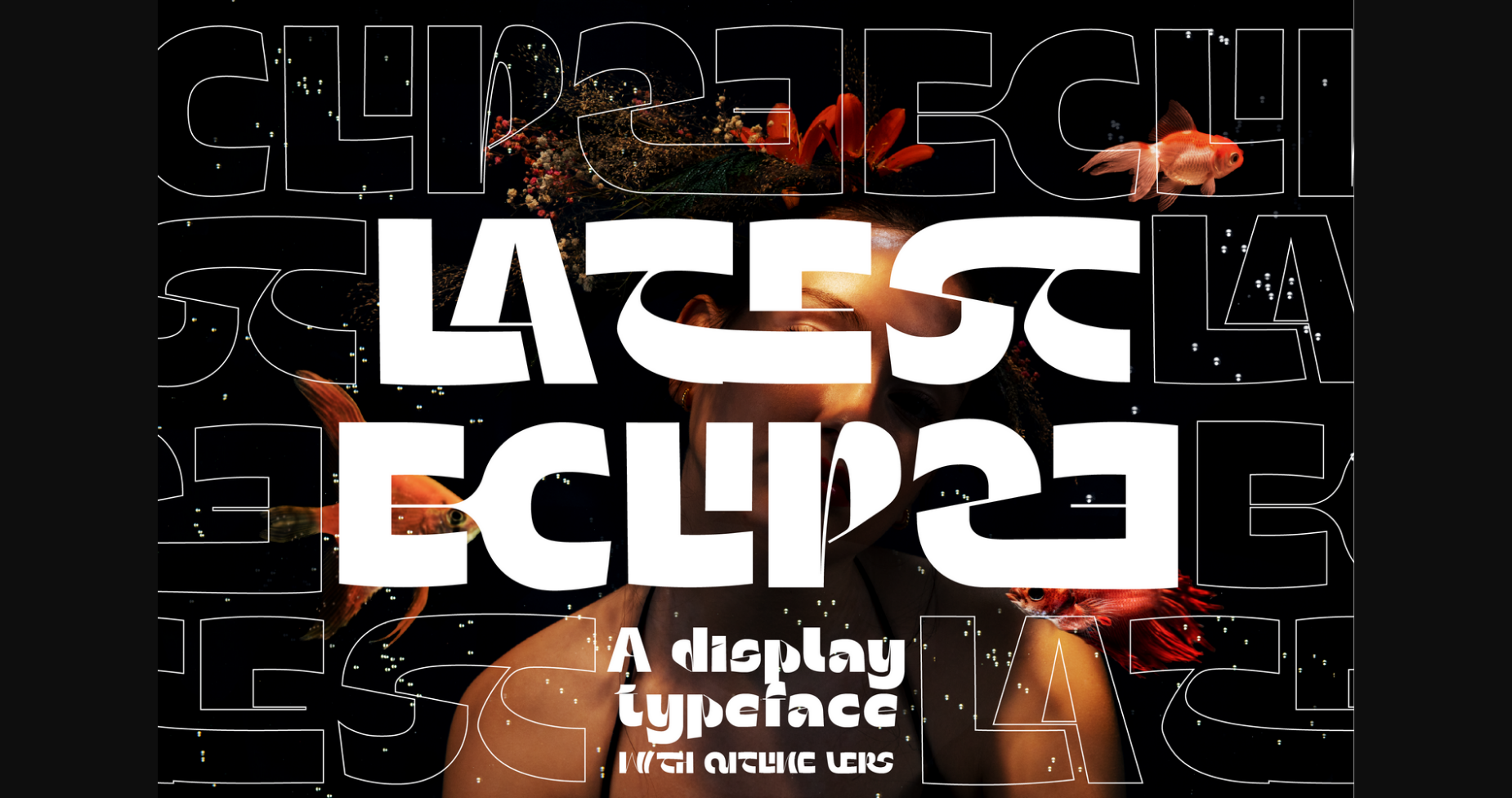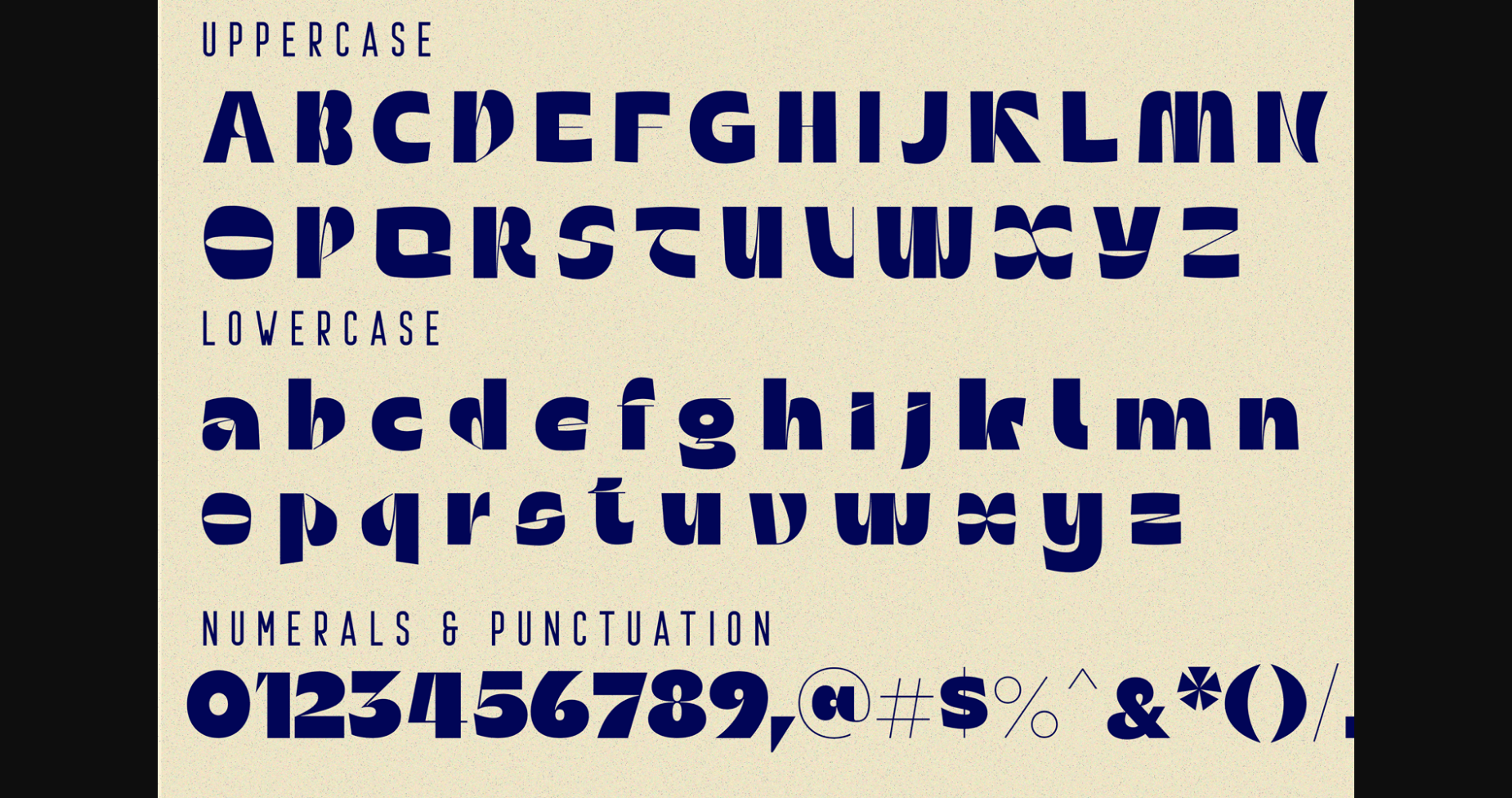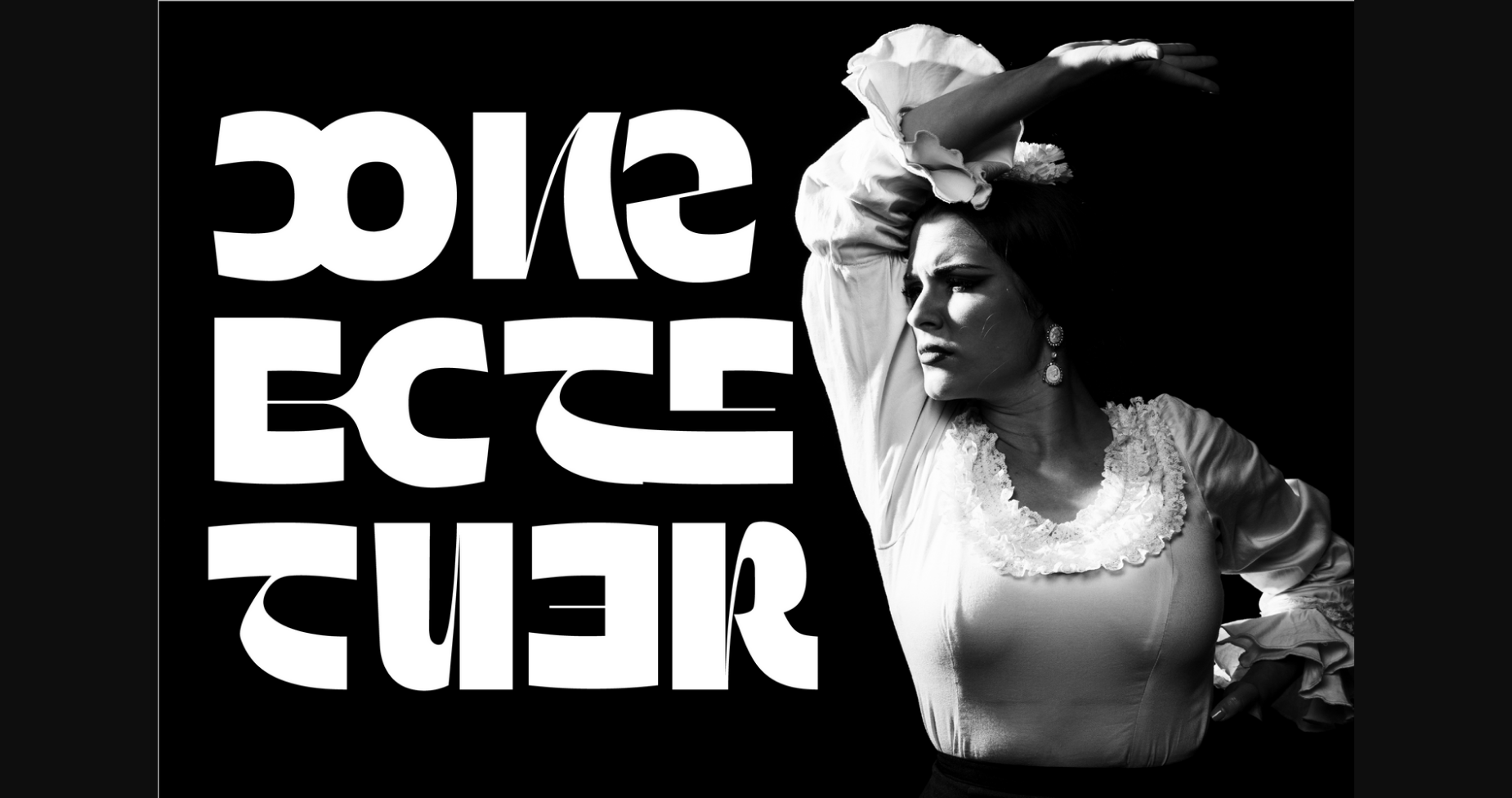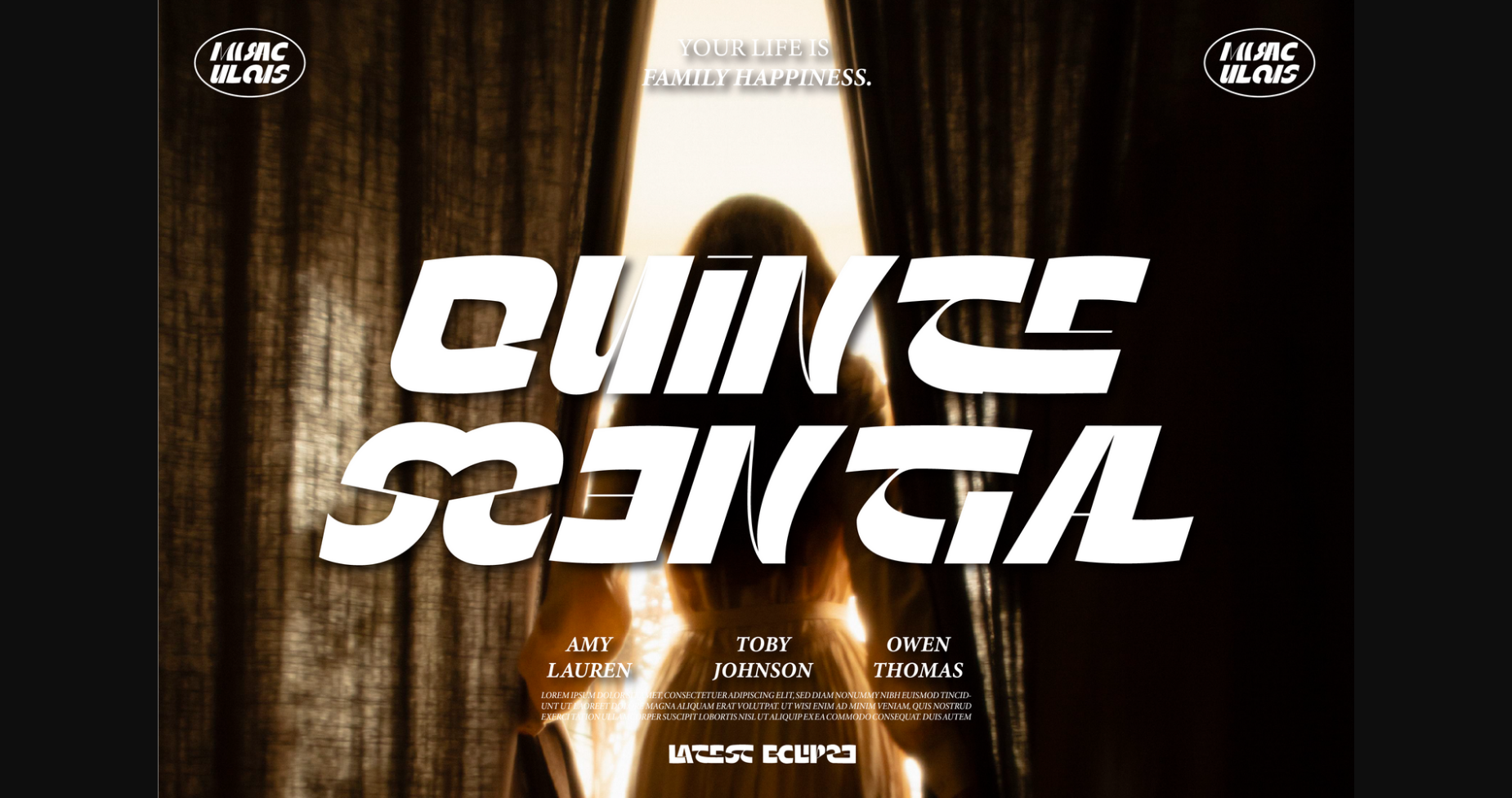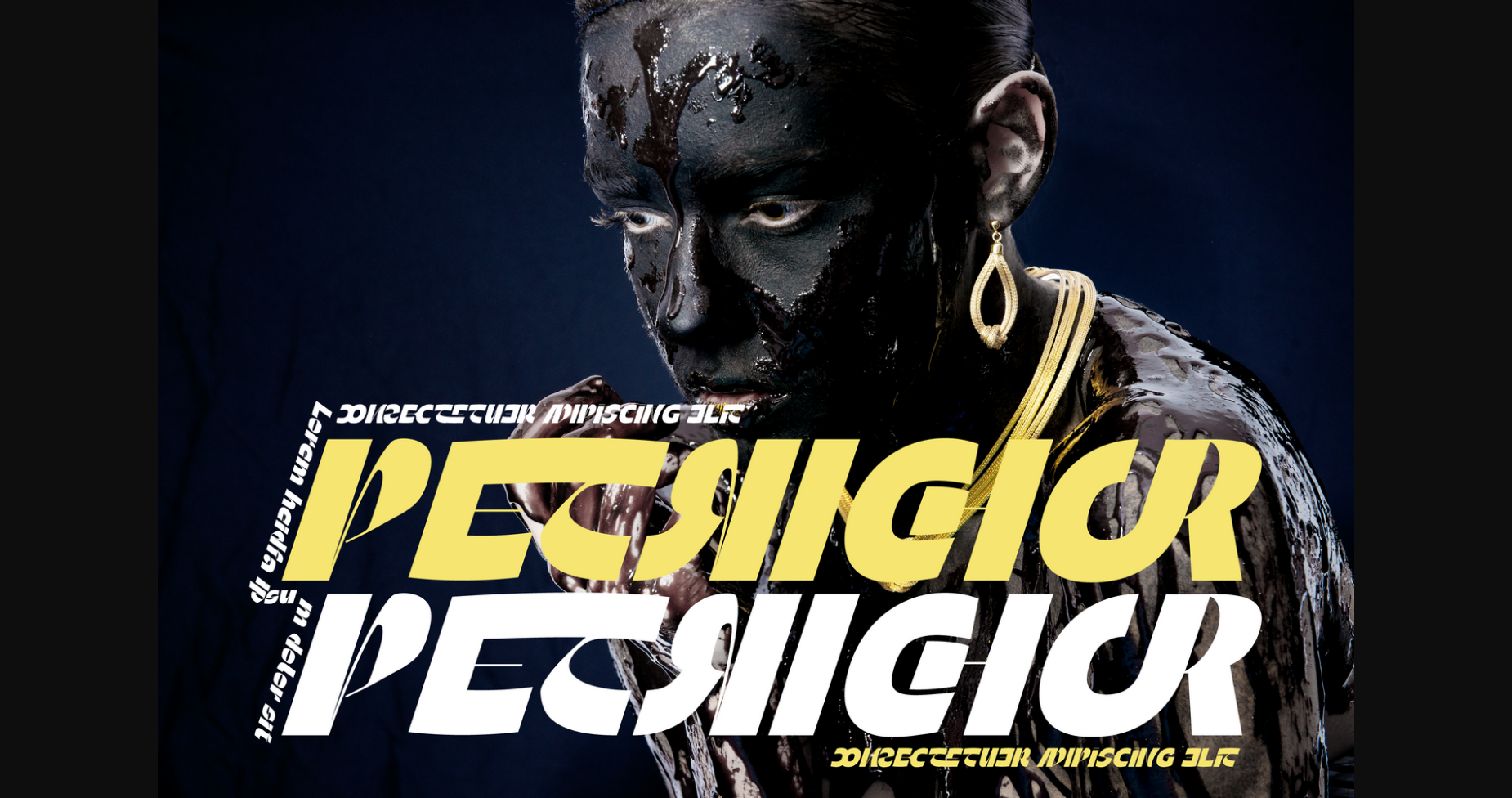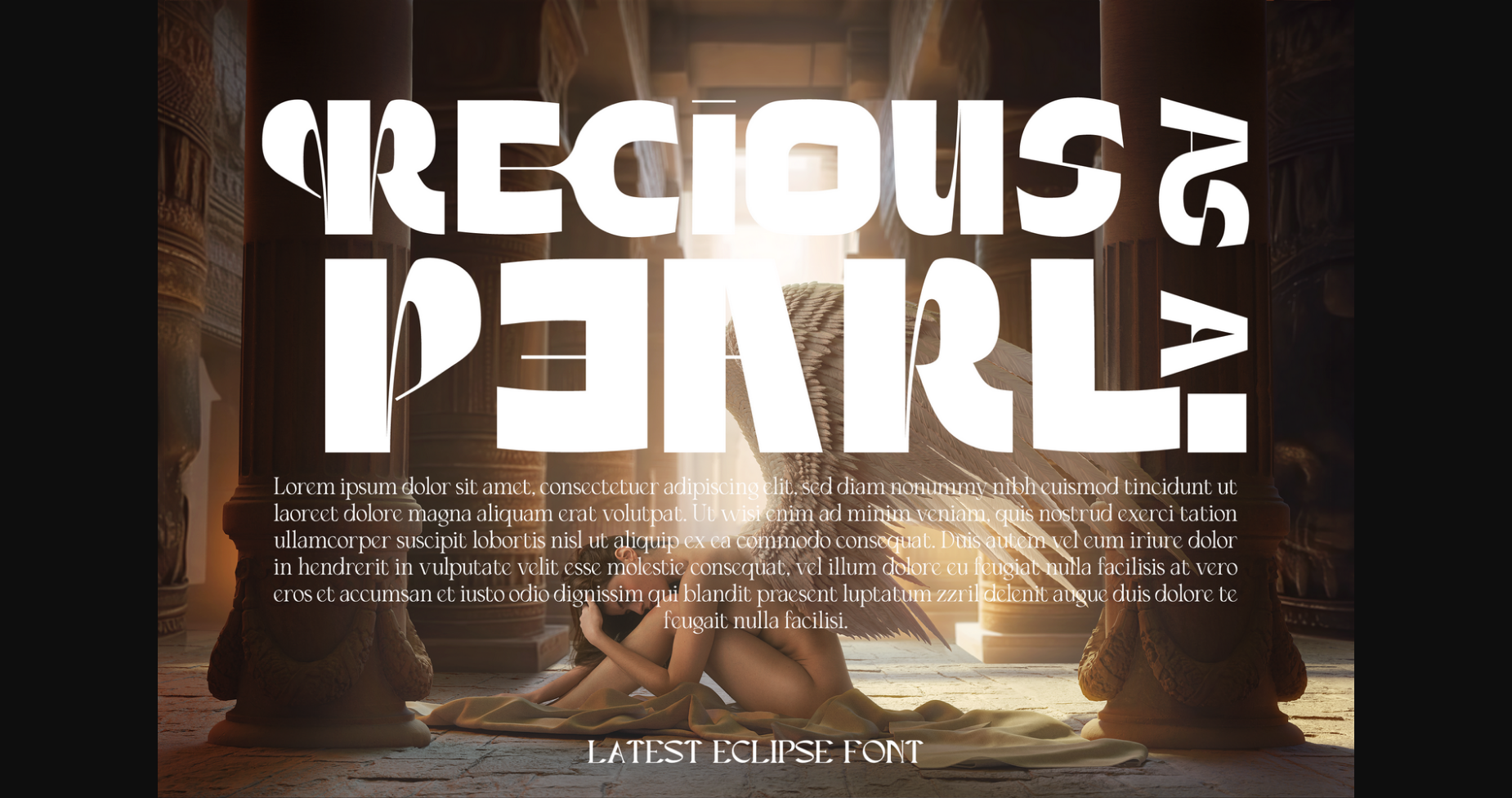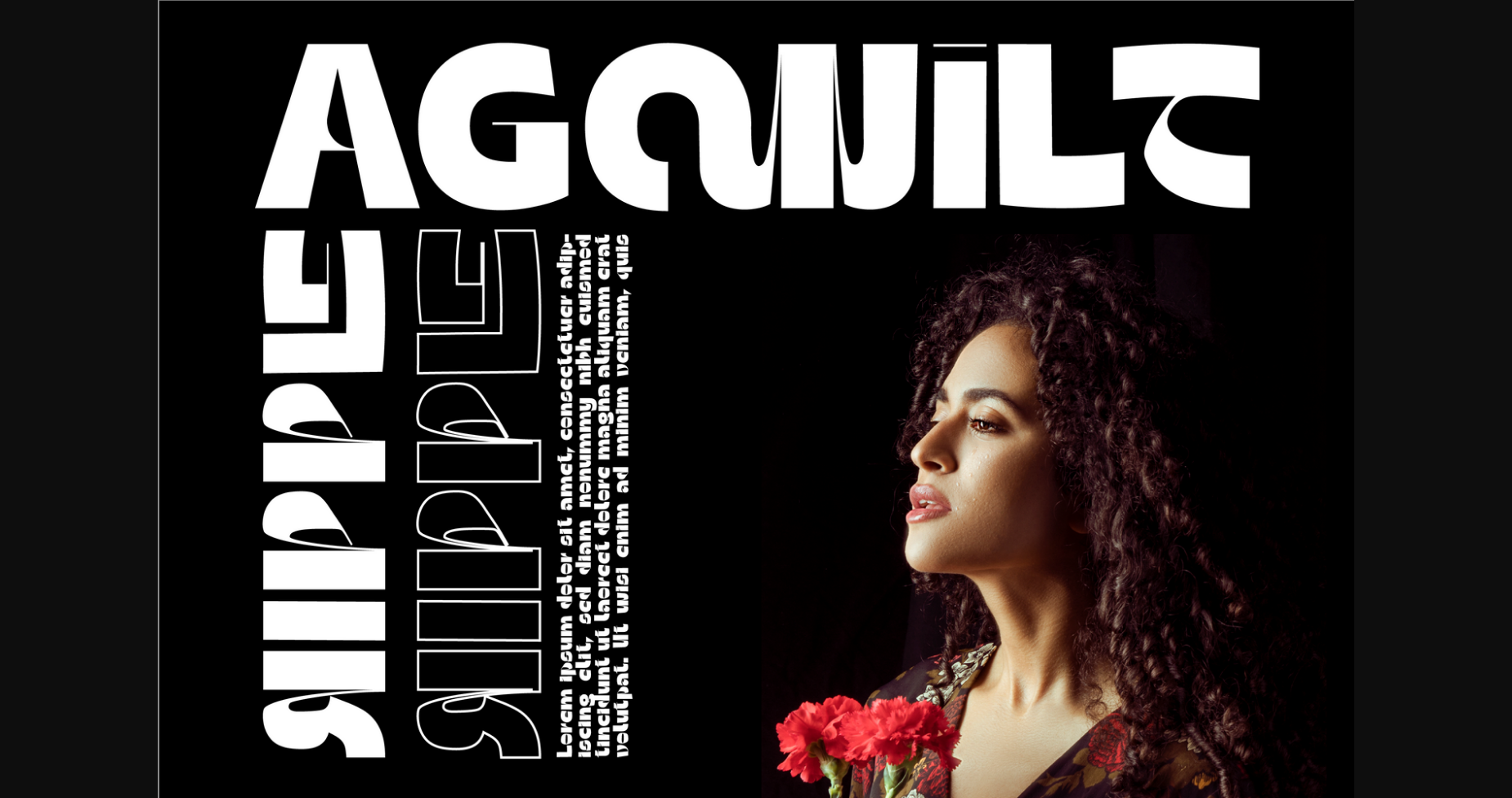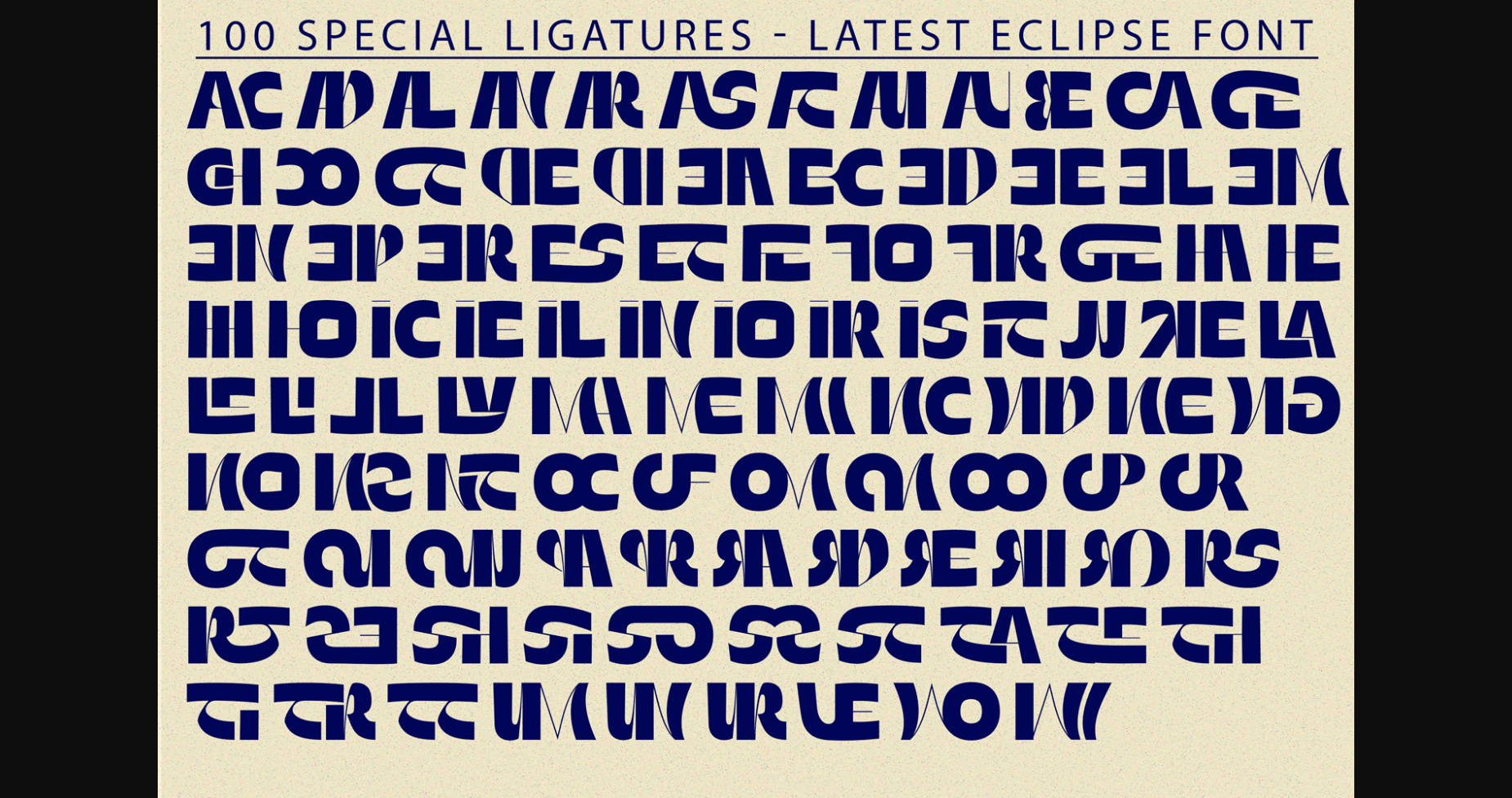
LATEST ECLIPSE FONT is a font for display font that requires a modern/futuristic appearance. Uppercase and Lowercase are available equipped with standard symbols and multilingual characters. This font is designed to be dynamic with today’s style. Perfect for the purposes of designing templates, brochures, videos, advertising branding, logos, invitation, layout design, elegant crafting, beauty design and other.
LATEST ECLIPSE was built with OpenType features and includes 100 ligatures, alternate, numbers, punctuation, and it also supports other languages.